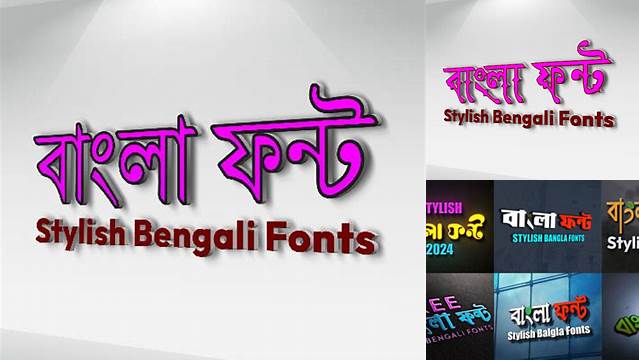
Free Bangla Fonts: Your Guide To Copyright-Free Options
Are you looking for copyright-free Bangla fonts for your next project? You've come to the right place! In this article, we'll dive deep into the world of Bangla typography, exploring where you can find high-quality fonts that you can use without worrying about licensing issues. Whether you're a graphic designer, a web developer, or just someone who loves the beauty of the Bangla script, this guide will equip you with the knowledge you need to make informed choices.
Why Use Copyright-Free Bangla Fonts?
Where to Find Copyright-Free Bangla Fonts
Okay, so you're convinced that copyright-free Bangla fonts are the way to go. But where do you actually find them? Here are some of the best resources available online:
1. Google Fonts
Google Fonts is a treasure trove of free fonts, including a growing selection of Bangla fonts. All fonts on Google Fonts are open-source and licensed under the SIL Open Font License (OFL), which means you can use them for any purpose, commercial or non-commercial. Some popular Bangla fonts available on Google Fonts include:
- Hind Siliguri: A versatile sans-serif font that's perfect for body text and headings.
- Noto Sans Bengali: Part of Google's Noto font family, which aims to cover all the world's scripts. It's a reliable choice for ensuring consistent rendering of Bangla text across different platforms.
- Baloo Da 2: A fun and playful font with rounded letterforms, ideal for children's books and other lighthearted designs.
2. Ekushey Font
The Ekushey Font project is a dedicated initiative to create high-quality, copyright-free Bangla fonts. It's named after the Language Movement Day in Bangladesh, which commemorates the struggle for the recognition of the Bangla language. The project aims to promote the use of Bangla in digital media by providing free and accessible fonts.
The Ekushey Font collection includes a variety of styles, from traditional to modern, and is constantly being updated with new additions. The fonts are meticulously designed and optimized for readability, making them a great choice for both print and web design. You can download the fonts for free from the Ekushey Font website.
3. Fontshare
Fontshare is a growing platform offering a curated collection of royalty-free fonts, including some beautiful Bangla options. While not exclusively Bangla, it's worth checking as the library expands. Fontshare prides itself on high-quality fonts and a user-friendly experience.
4. Open Font Library
The Open Font Library is another excellent resource for finding copyright-free Bangla fonts. It's a community-driven project that aims to provide a comprehensive archive of free and open-source fonts. While the selection of Bangla fonts may not be as extensive as Google Fonts or Ekushey Font, you can still find some hidden gems here. The fonts are licensed under various open-source licenses, so be sure to check the specific license before using them.
5. Independent Foundries and Designers